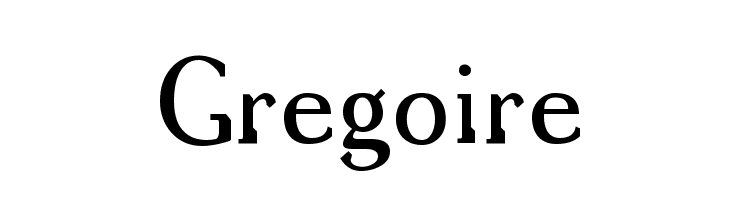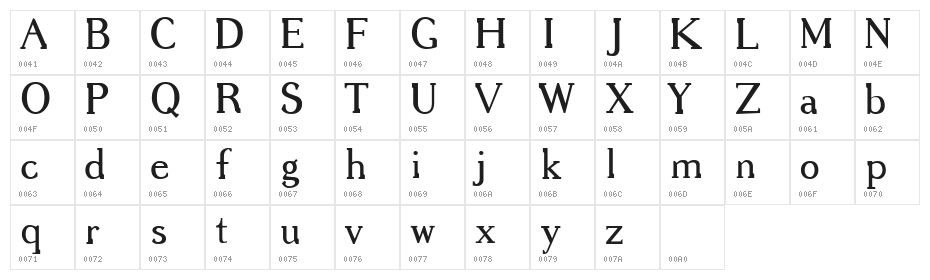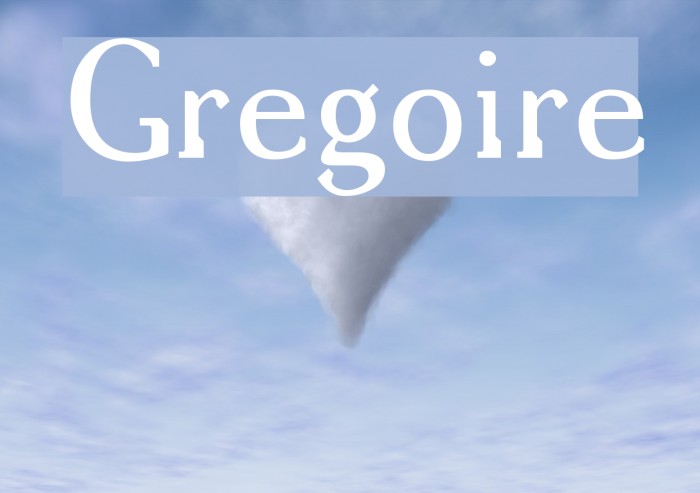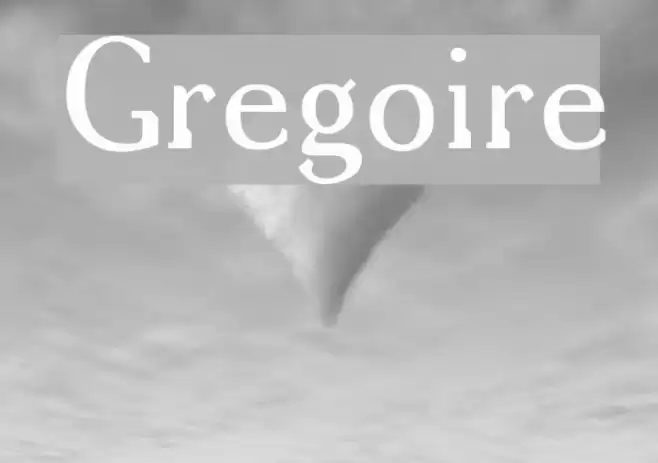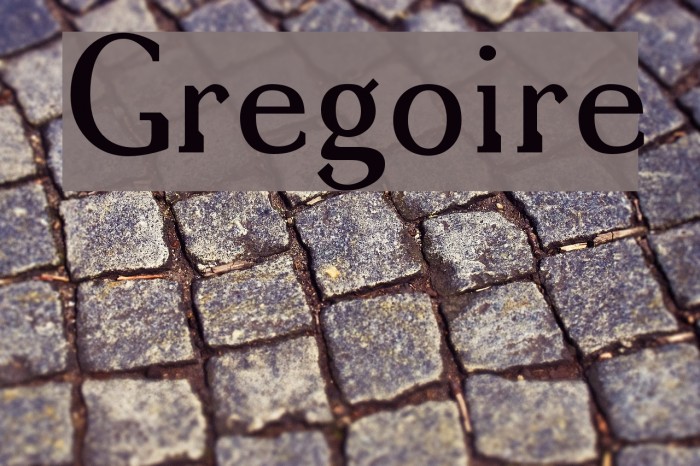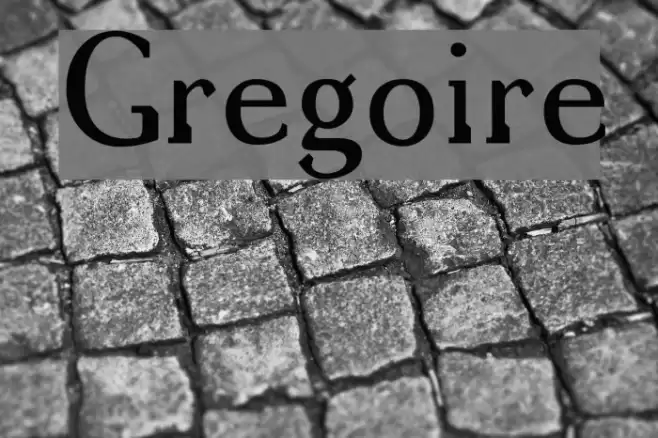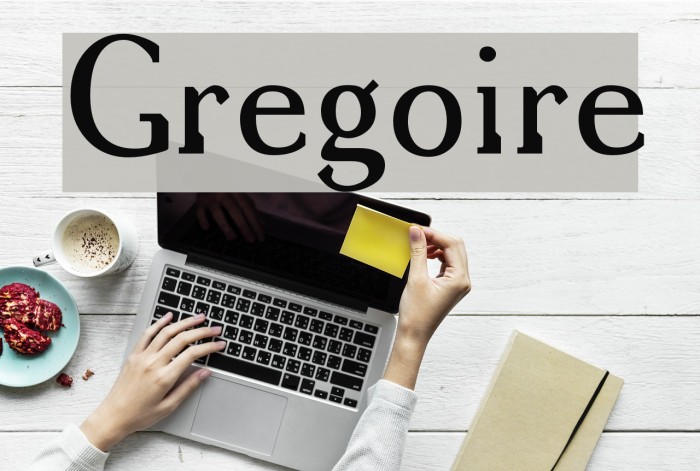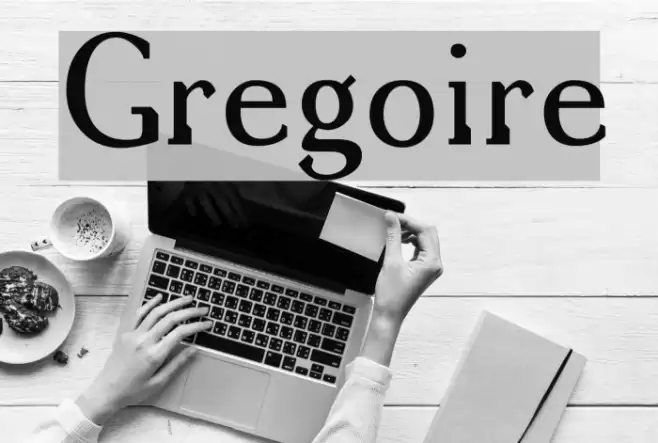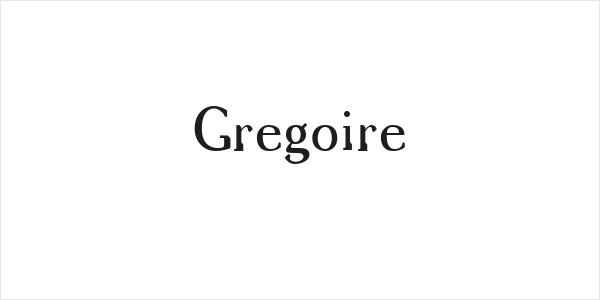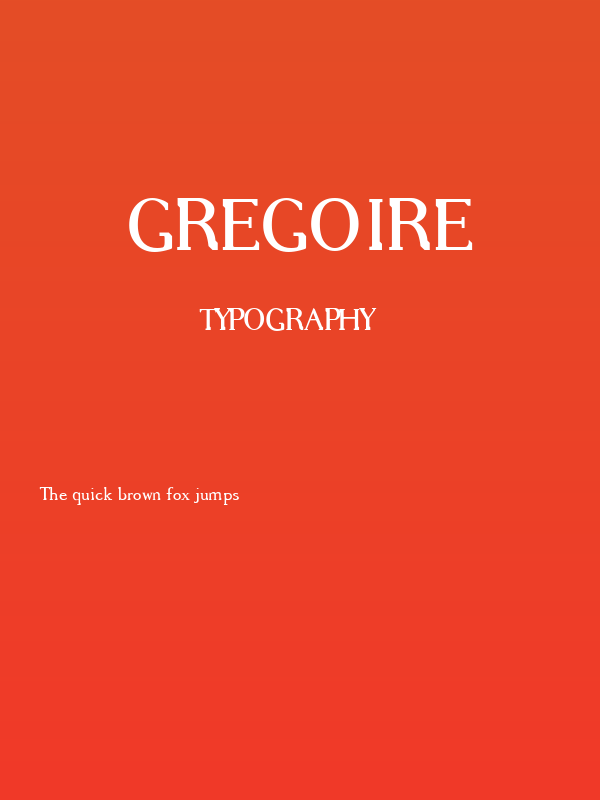
Gregoire Font
Gregoire Description
This font exudes a classic and elegant style with its distinct serif features. The uppercase letters are bold and commanding, while the lowercase letters maintain a refined and sophisticated appearance. The serifs are pronounced, adding a touch of tradition and formality. The overall design is balanced, with consistent stroke widths that provide a harmonious look. The font is versatile, suitable for both print and digital media, and can be used to convey a sense of authority and professionalism.
| Proposed Projects | Ideal for book covers, formal invitations, branding materials, and editorial design. |